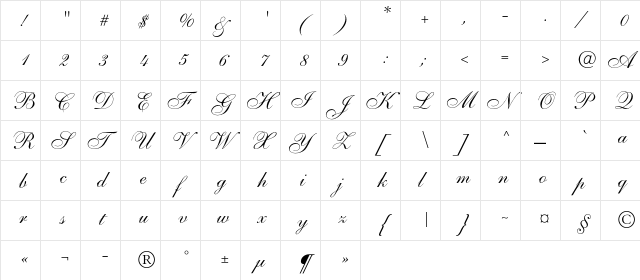
AnastasiaScript Regular
Design Context for AnastasiaScript Typeface
AnastasiaScript brings a calligraphic fluidity to the page — its connecting strokes and expressive curves give it an unmistakably human quality.
Font Pairing: Combine AnastasiaScript with a simple geometric sans for maximum contrast — the tension between flowing curves and clean structure is a classic typographic pairing.
Pro Tip: Pair AnastasiaScript with a clean sans-serif for supporting text. The contrast between fluid script and geometric structure creates an elegant typographic hierarchy.